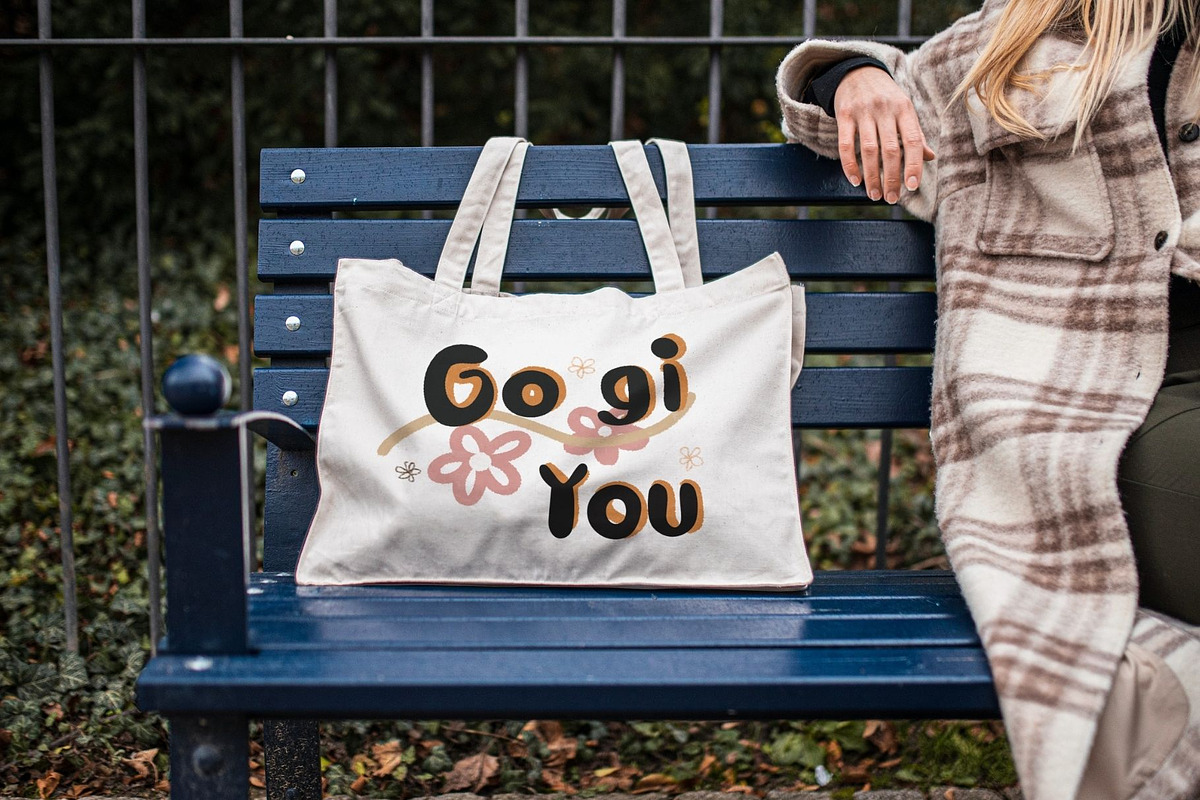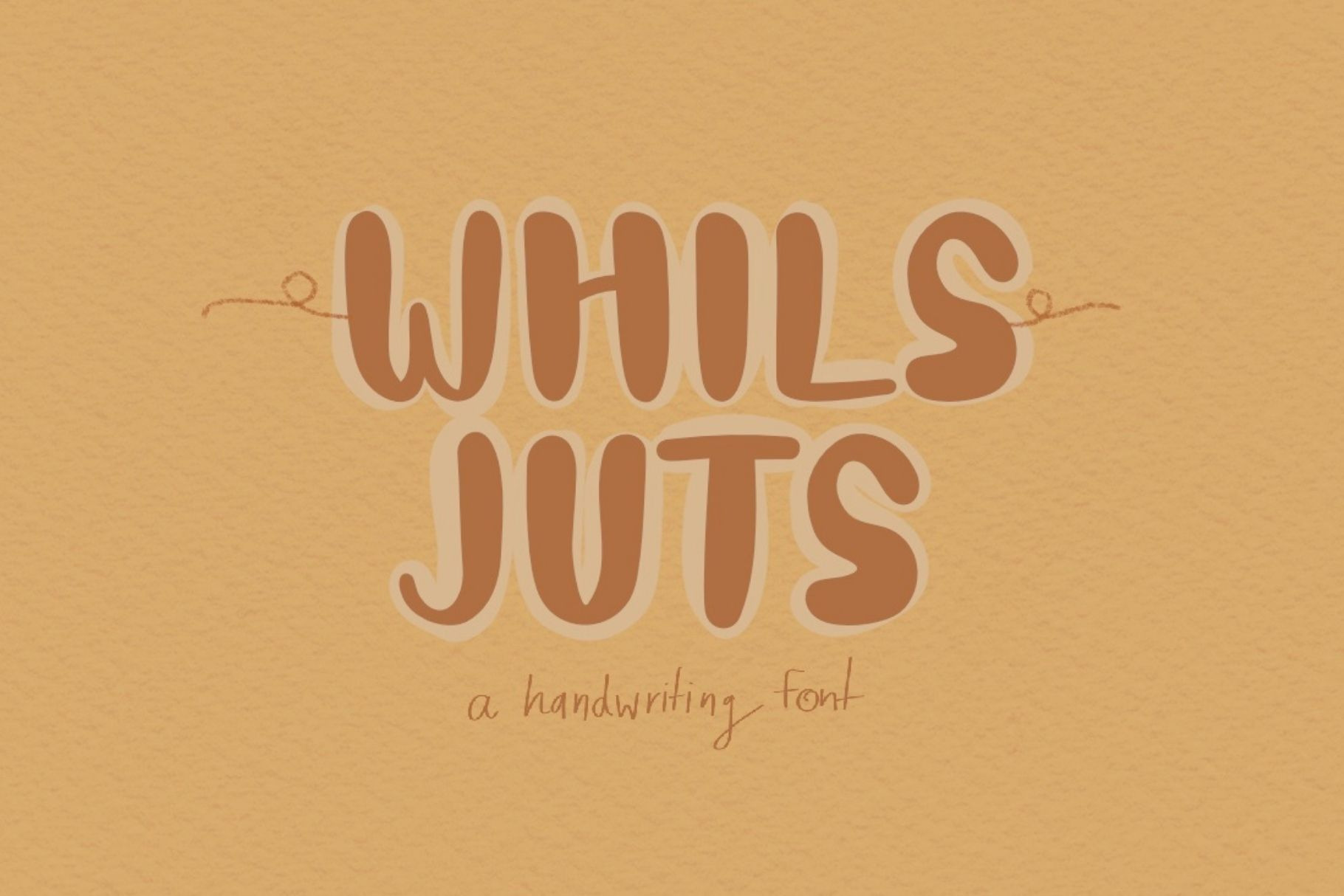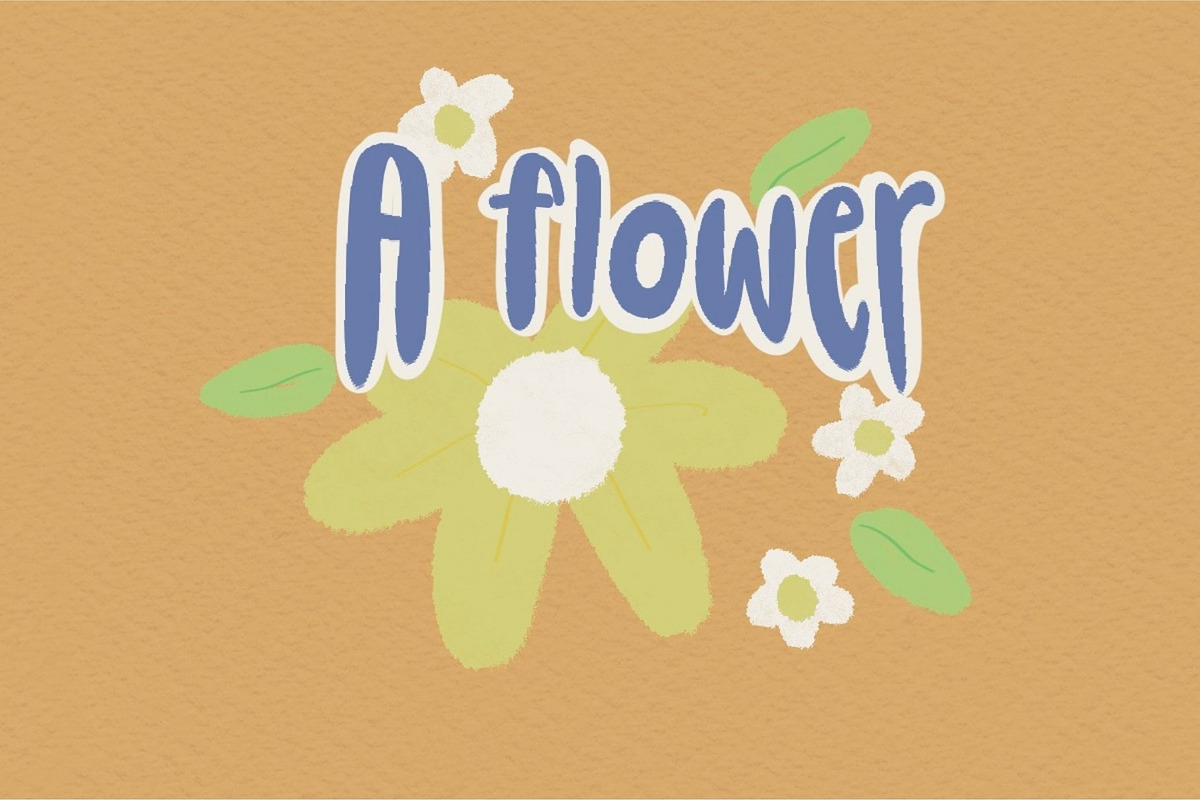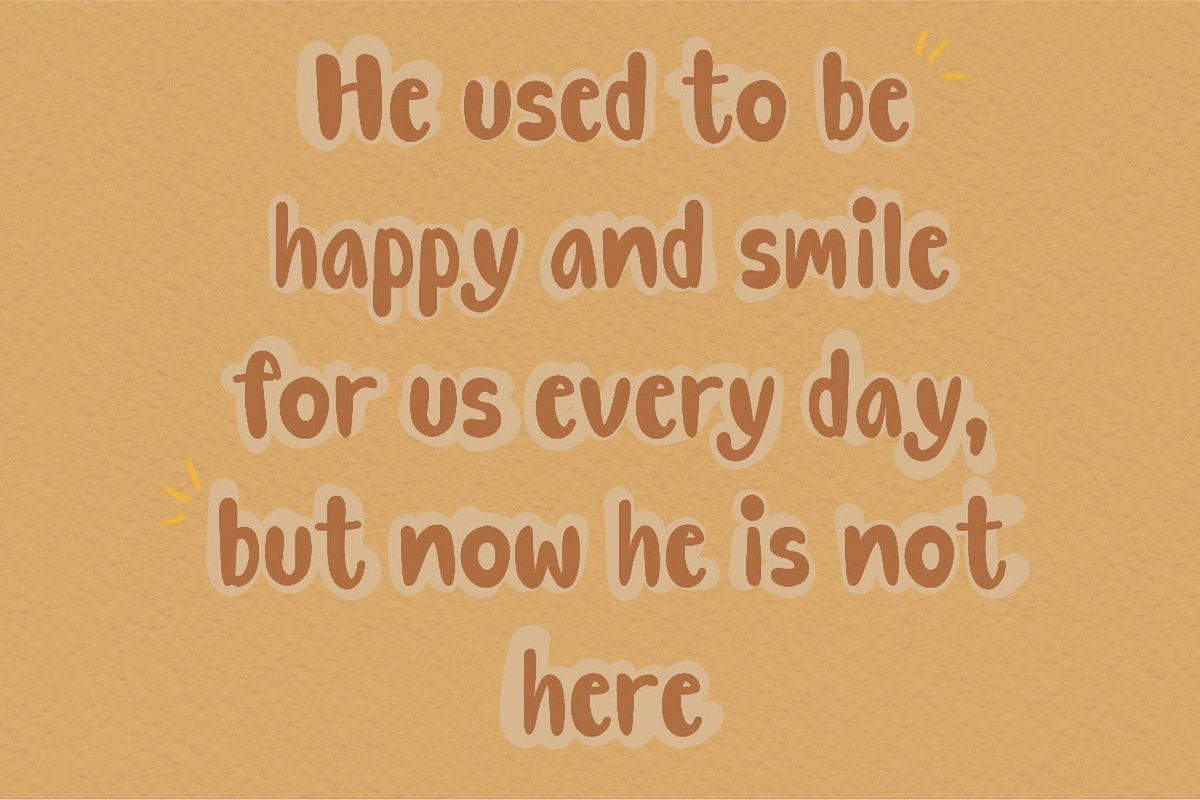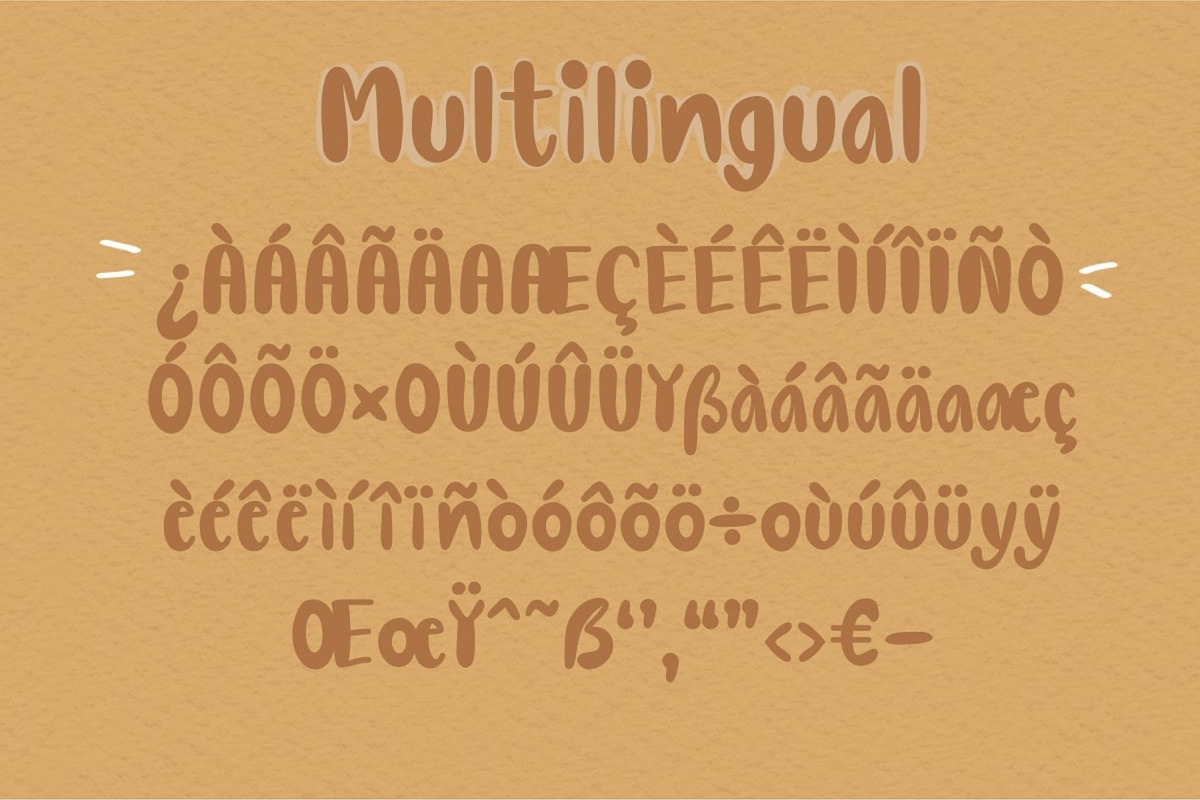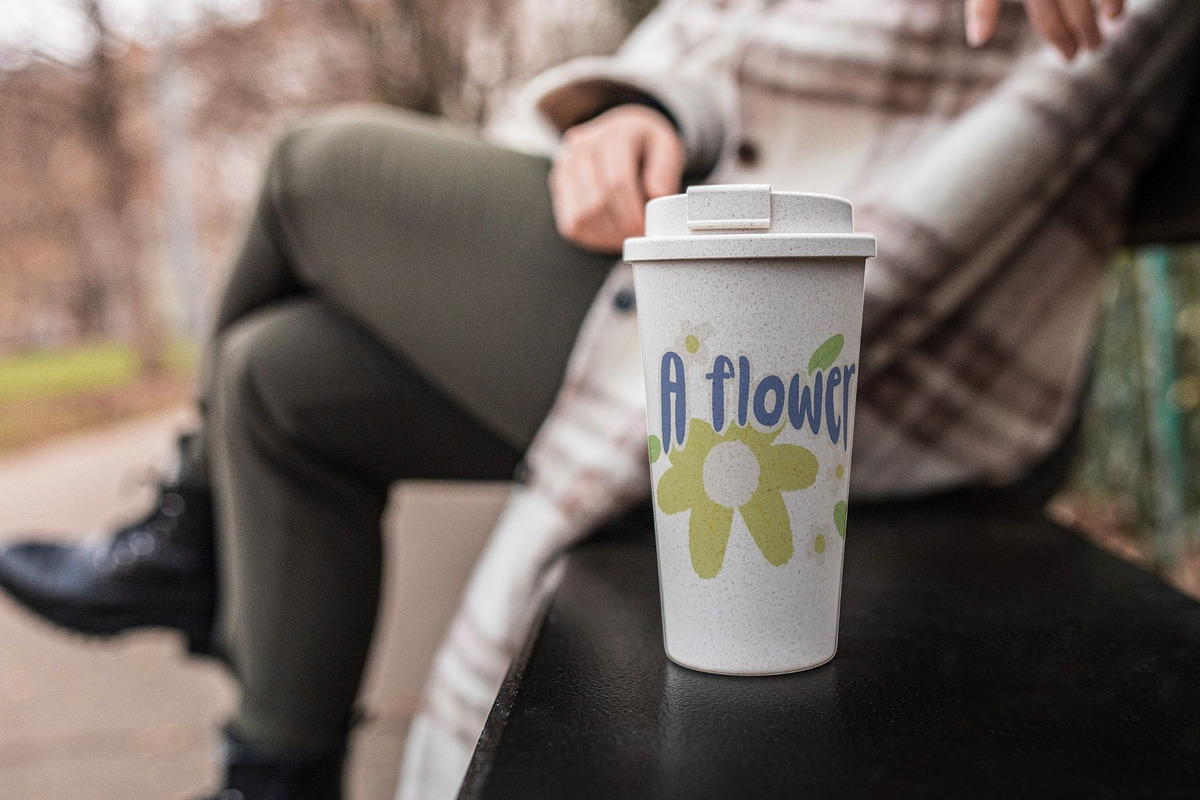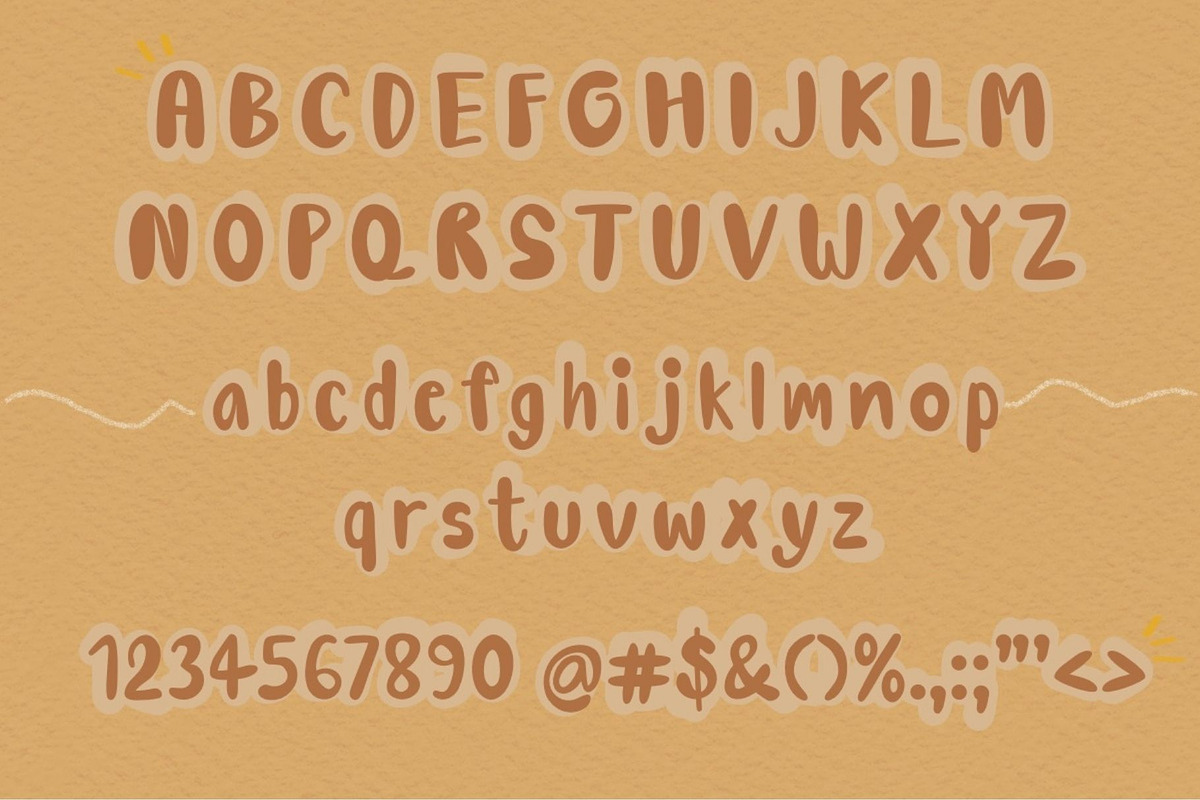
While just font
While just a display handwritten font. This decorative font has been designed to feel modern, stylish, and contemporary, making your design work stand out. It can be applied to various design projects, whether it's clothing, bags, books, and more, to showcase your unique personality. Enjoy the design process!
WHAT'S INCLUDED This font contains standard characters, lowercase, uppercase, numbers, punctuation and international characters.
Multi-language support: Spanish, French,German,Portuguese and ltalian.